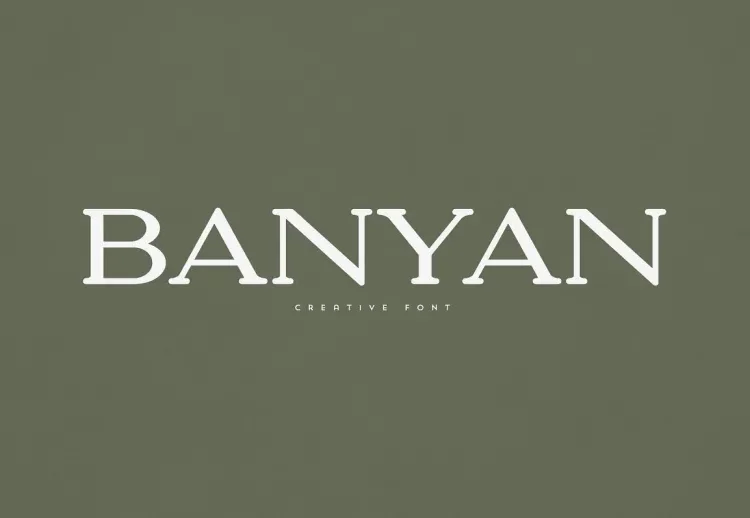
Banyan Font
Banyan is a striking and versatile serif typeface that brings a unique flair to any typographic composition. Perfect for headlines, logos, branding, or simple text, Banyan adds elegance and eye-catching beauty to every project. Whether used in product branding, magazine headlines, or as an elegant text overlay, this font elevates the design with its refined charm.
Ideal for a wide range of applications, Banyan is also perfect for adding an extra layer of sophistication to images. Its clean lines and timeless design make it the perfect choice for those seeking a stylish and impactful typeface.